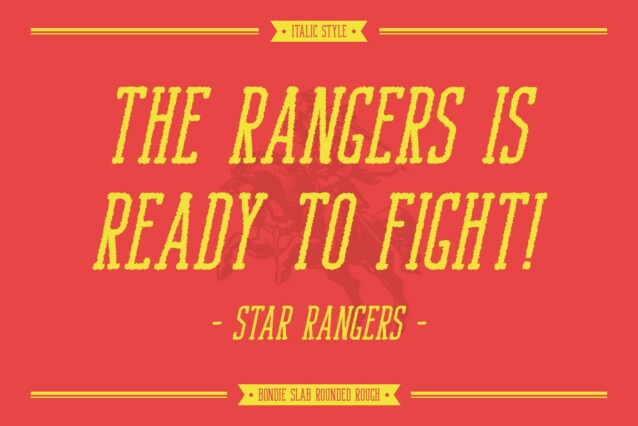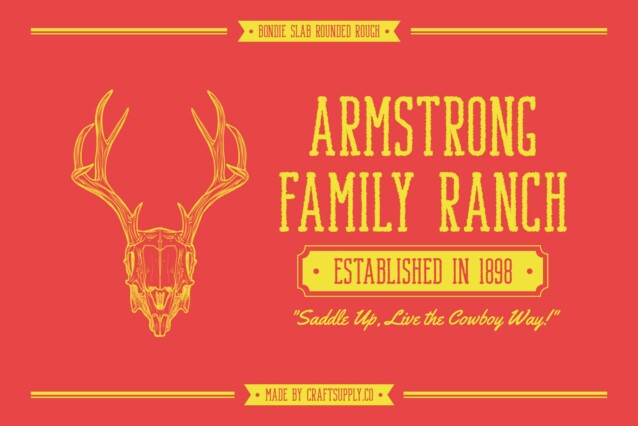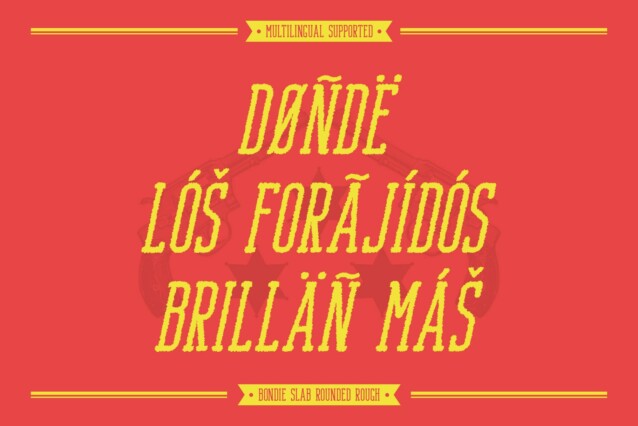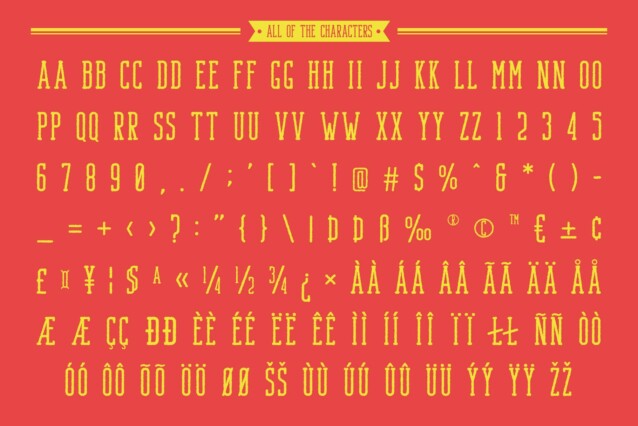
Bondie Slab Rounded Rough Font
Bondie Slab Rounded Rough Font – This modern serif font that beautifully blends boldness with a playful twist. Featuring a unique slab design, this font showcases condensed and rounded shapes that create a visually striking and distinctive appearance. Its friendly curves enhance the overall aesthetic, making it perfect for designs that aim to capture attention while conveying a sense of approachability.